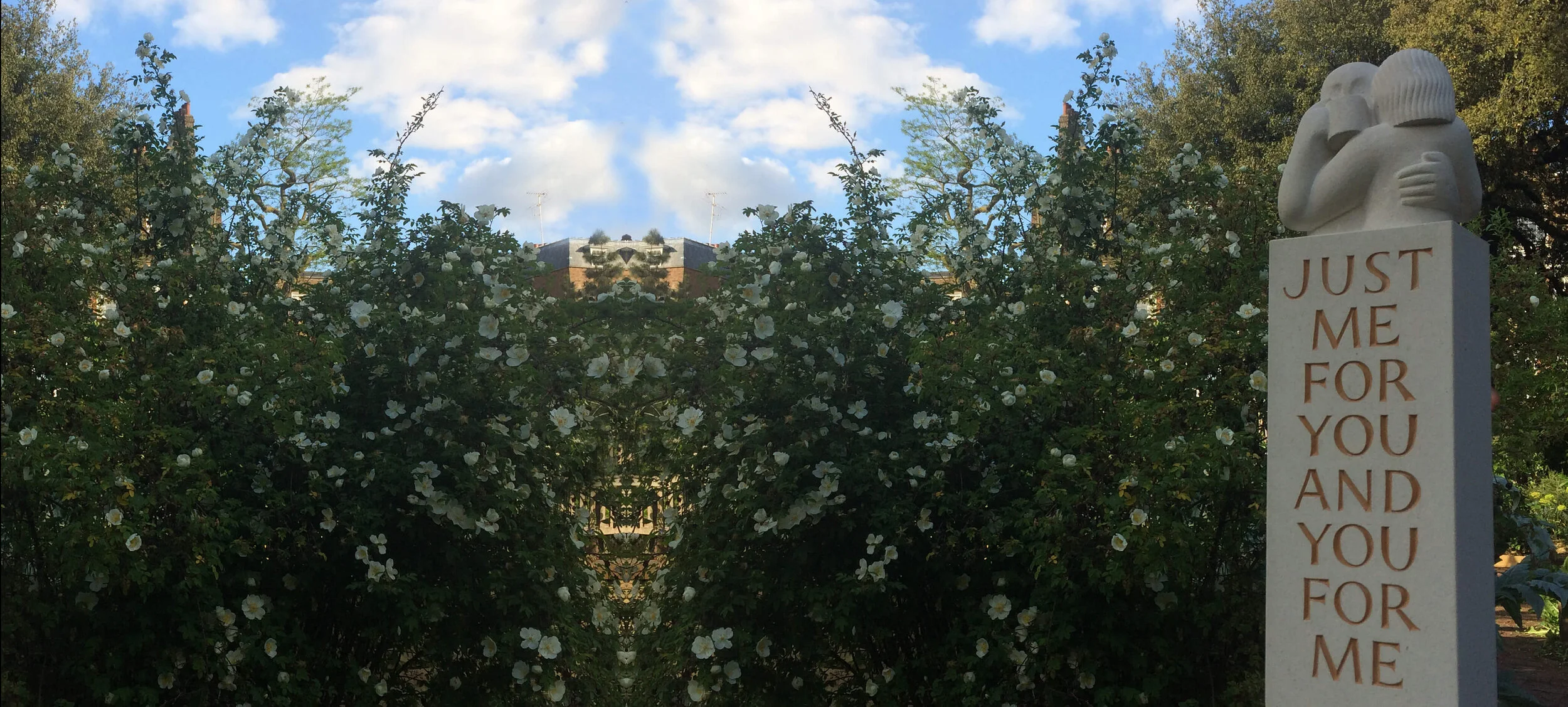
Artworks
for Gardens
Planning an artwork for your garden?
Let us help bring your ideas to life.
Our lettering artists will work with you to create an individually designed and hand crafted piece that will be treasured for generations. You can incorporate a joyful inscription or a favourite piece of poetry; include names and significant dates for a truly personal and bespoke artwork.  A bench, birdbath, sundial, large pebble or even a standing stone will make a striking focal point in your garden.
A thing of beauty - Martin Cook
She who plants a garden - Emi Gordon:
Gin and tonic bench - Annet Stirling
Gin and tonic bench - Lois Anderson
Why choose us?
• We guide you - from initial free consultation through to completion we are on hand with advice and guidance throughout this emotional journey
• the finest makers - these artists are the UK’s most skilled letter carvers
• Individual - create a personal work of art that truly reflects what you are commemorating
• Made by hand - hand-carved lettering has a presence and expressive power that a machine-made memorial can’t match
• Artists chosen by experts - master letter carvers choose the artists with whom we work, selecting only those who demonstrate an originality of design and an advanced understanding of letterforms
• Skills and tradition - these artists are among the very few letter carvers with the skills and training needed to produce the finest, most original work, passed on through generations of craftspeople
• YOUR CHOICE OF DESIGN - from standing stones and sculptures, to benches, metal work, sundials and bespoke pieces
The grass is always greener - Annet Stirling.
My job is to make them feel at ease with what they want to do and let them be in control. Then to fine tune their ideas and bring it all together. I’m their hands really.
— Andrew Daish, Artist